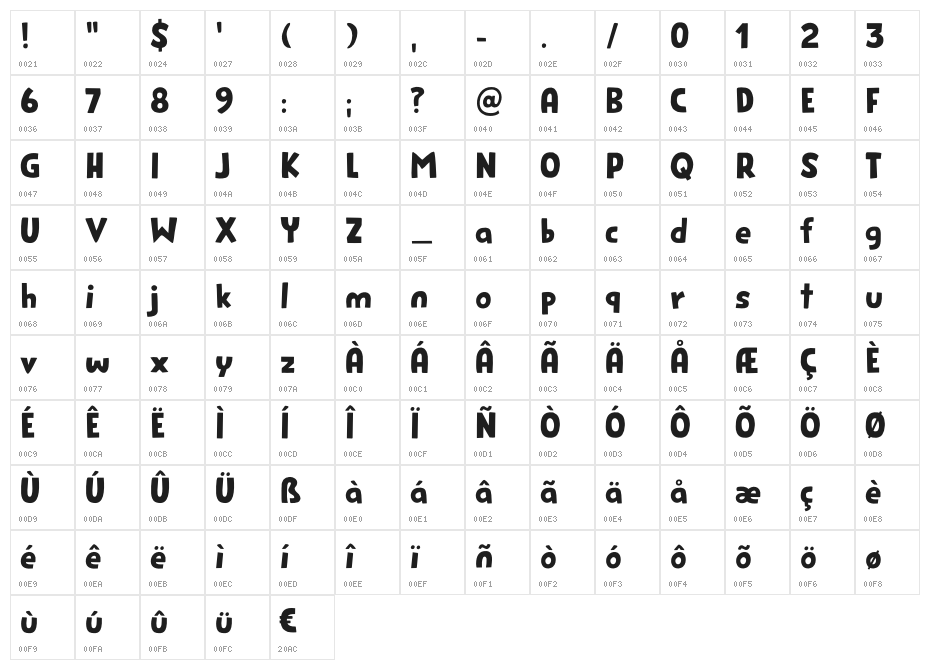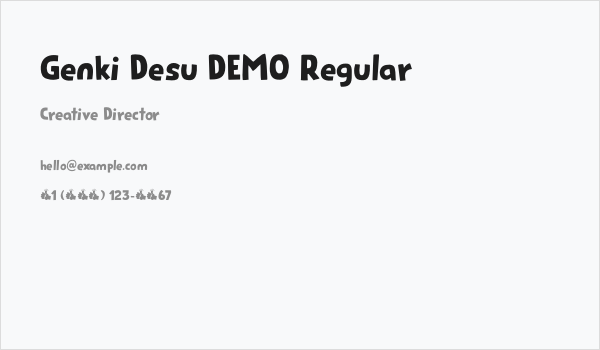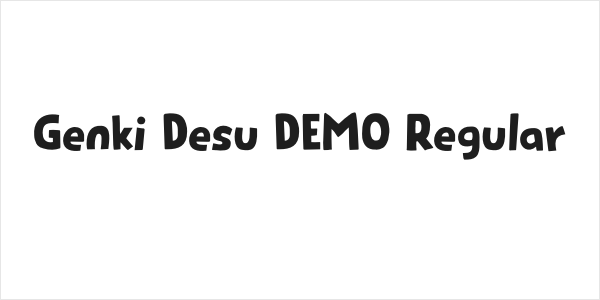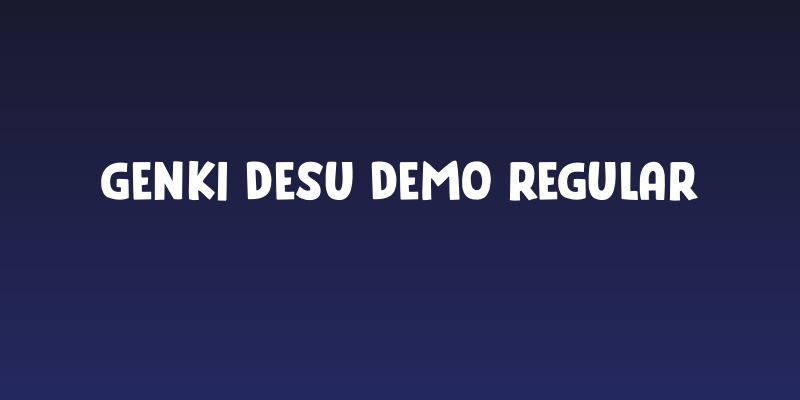
Genki Desu DEMO Regular Font
Genki Desu DEMO Regular Description
This font features a playful and bold style with rounded edges and a slightly irregular form, giving it a whimsical and friendly appearance. The uppercase and lowercase letters maintain a consistent thickness, contributing to a cohesive look. The numbers and special characters follow the same playful design, making them suitable for creative and informal contexts. The overall design is approachable and fun, ideal for projects that require a touch of personality and charm.
| Proposed Projects | Ideal for children's books, playful branding, posters, and greeting cards. |